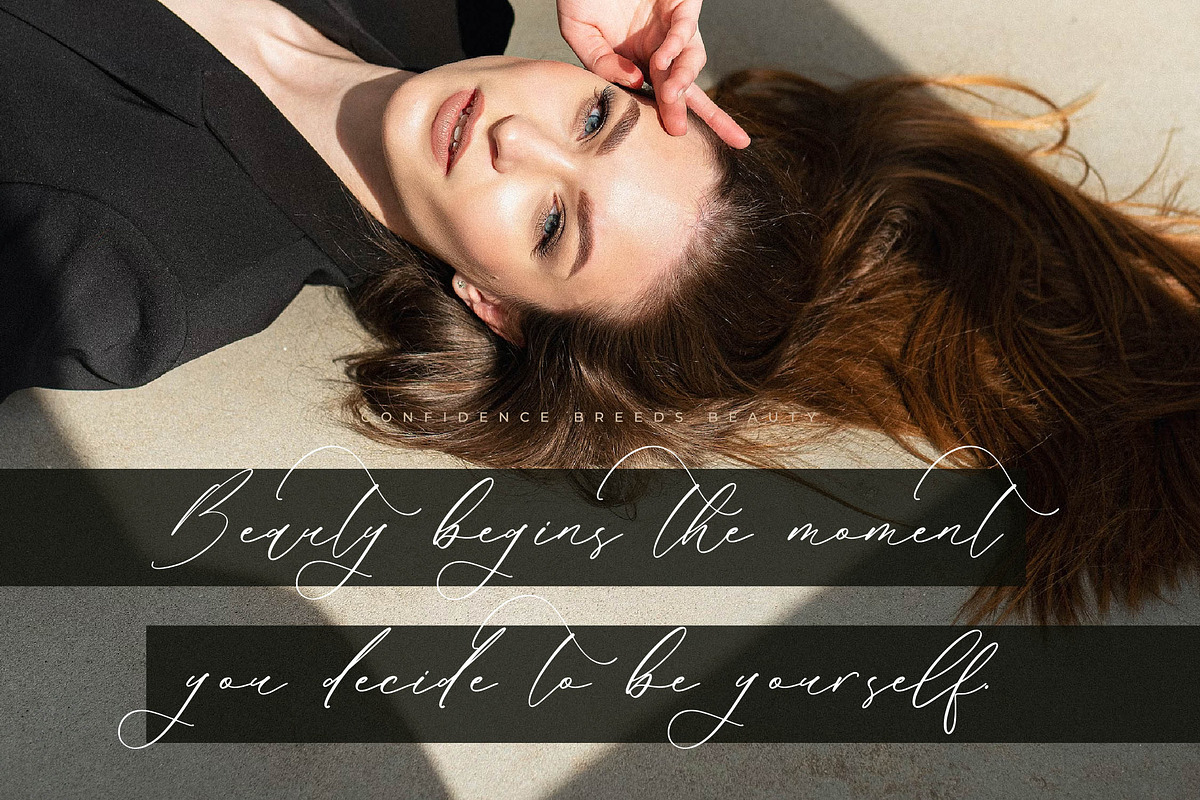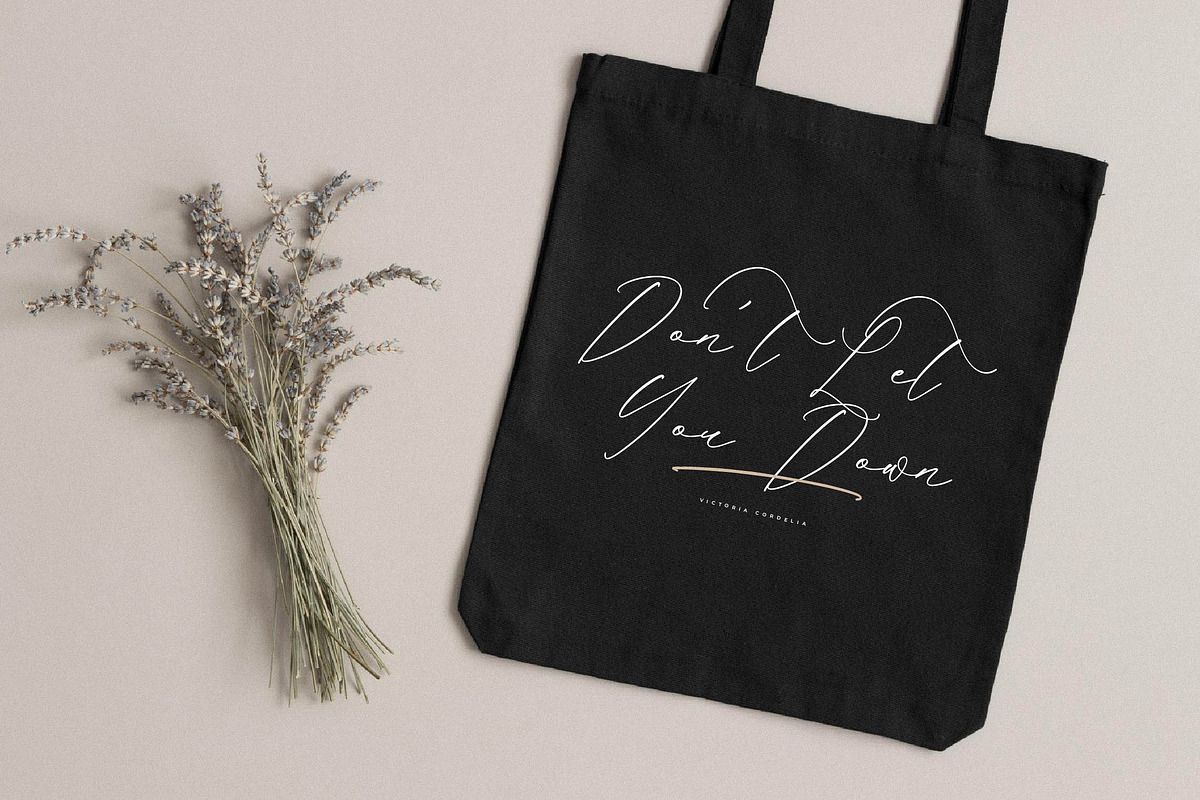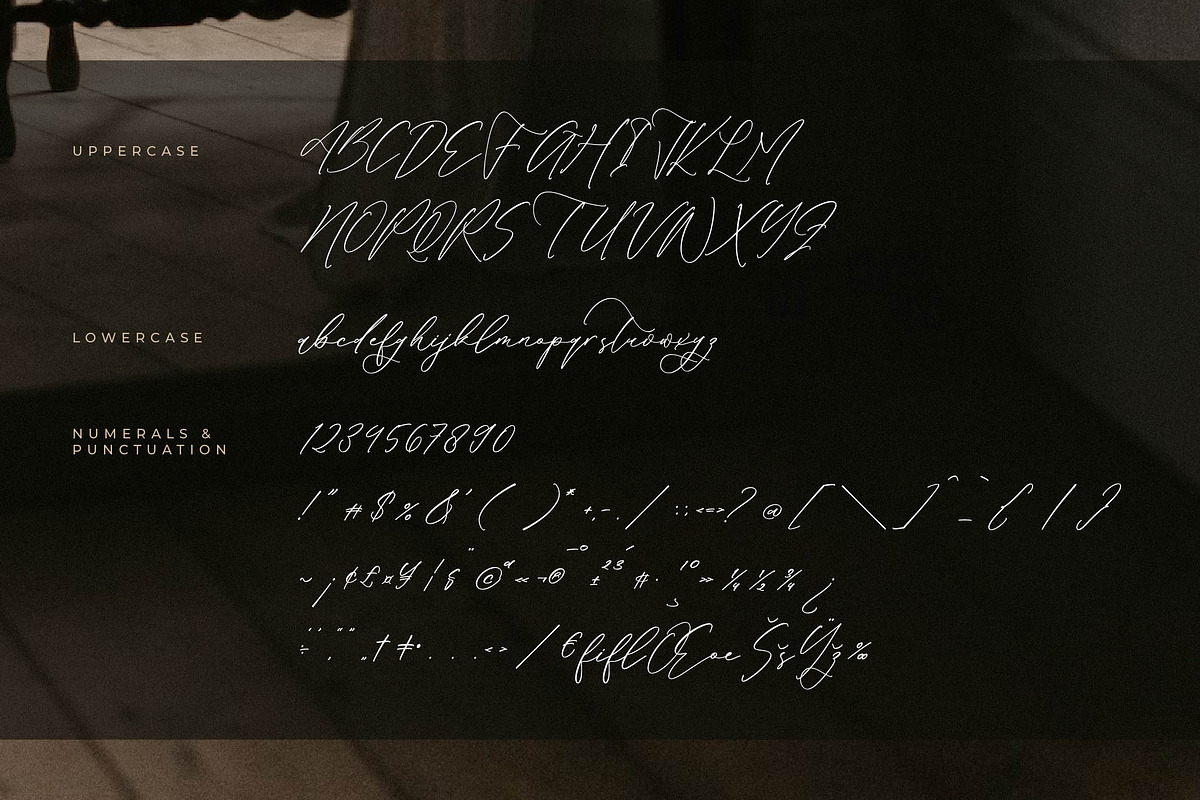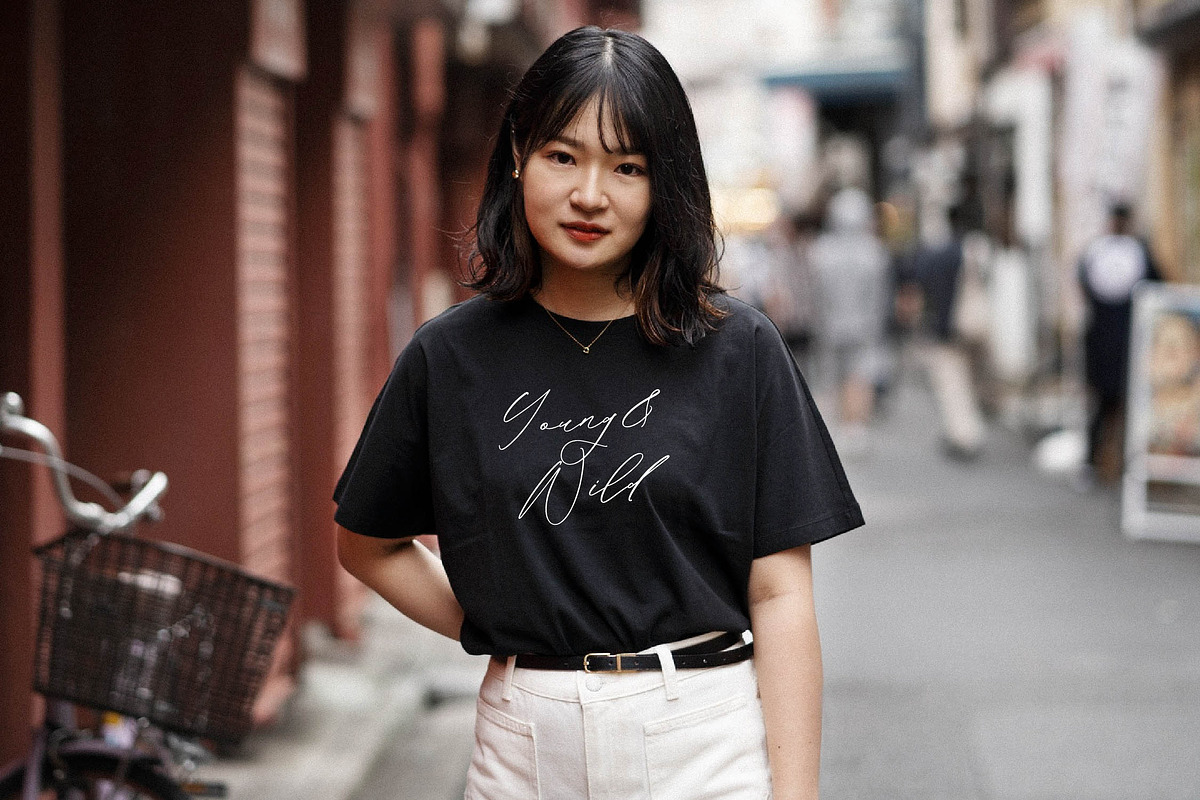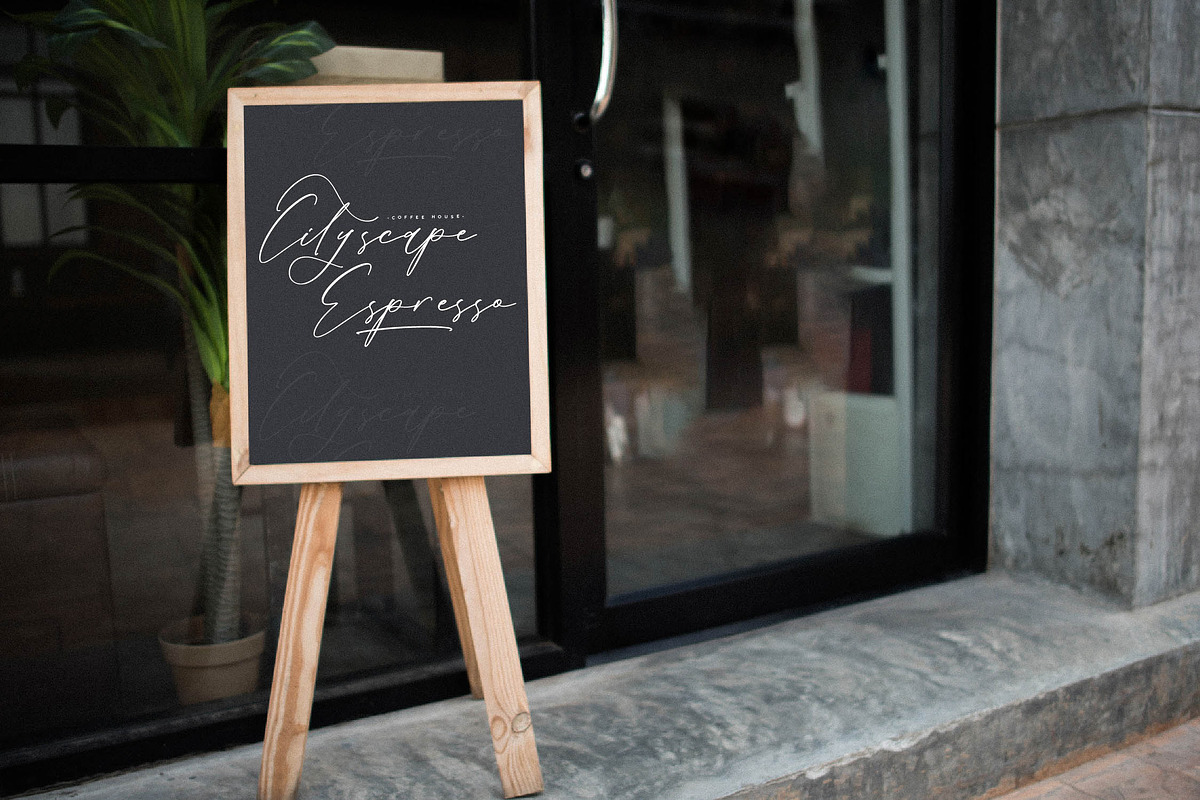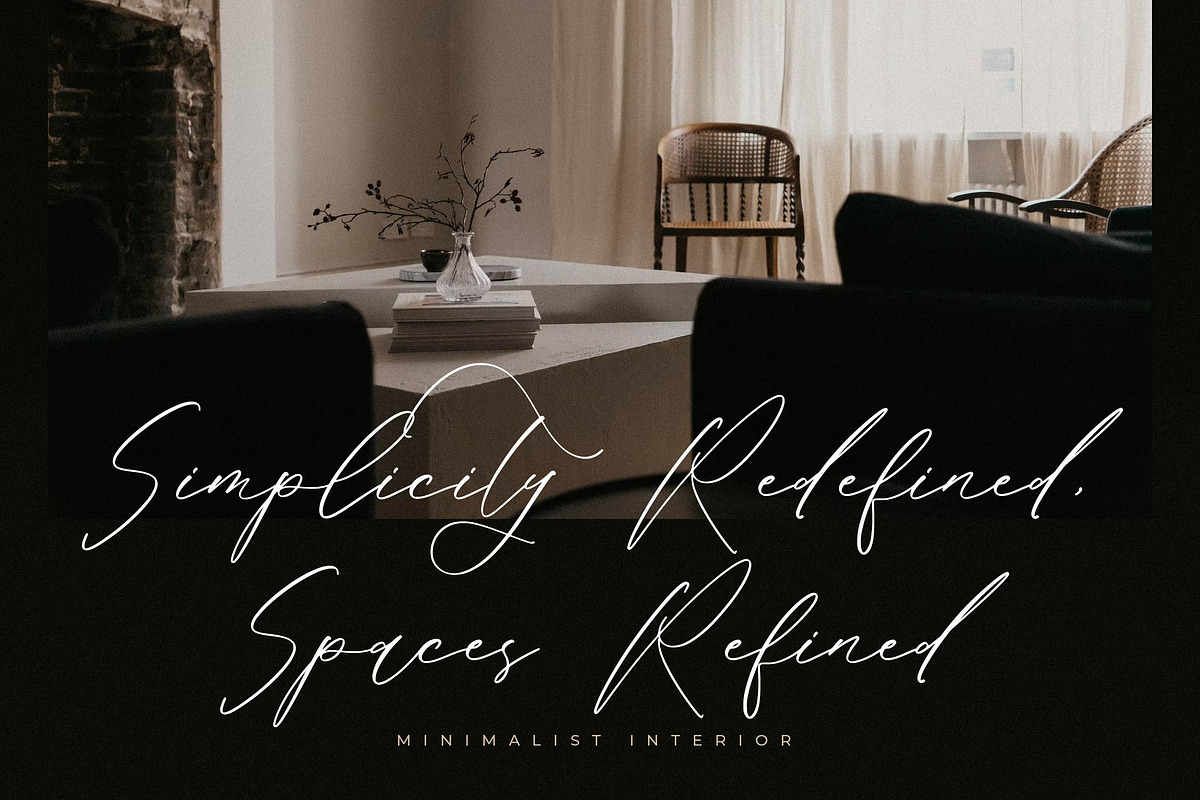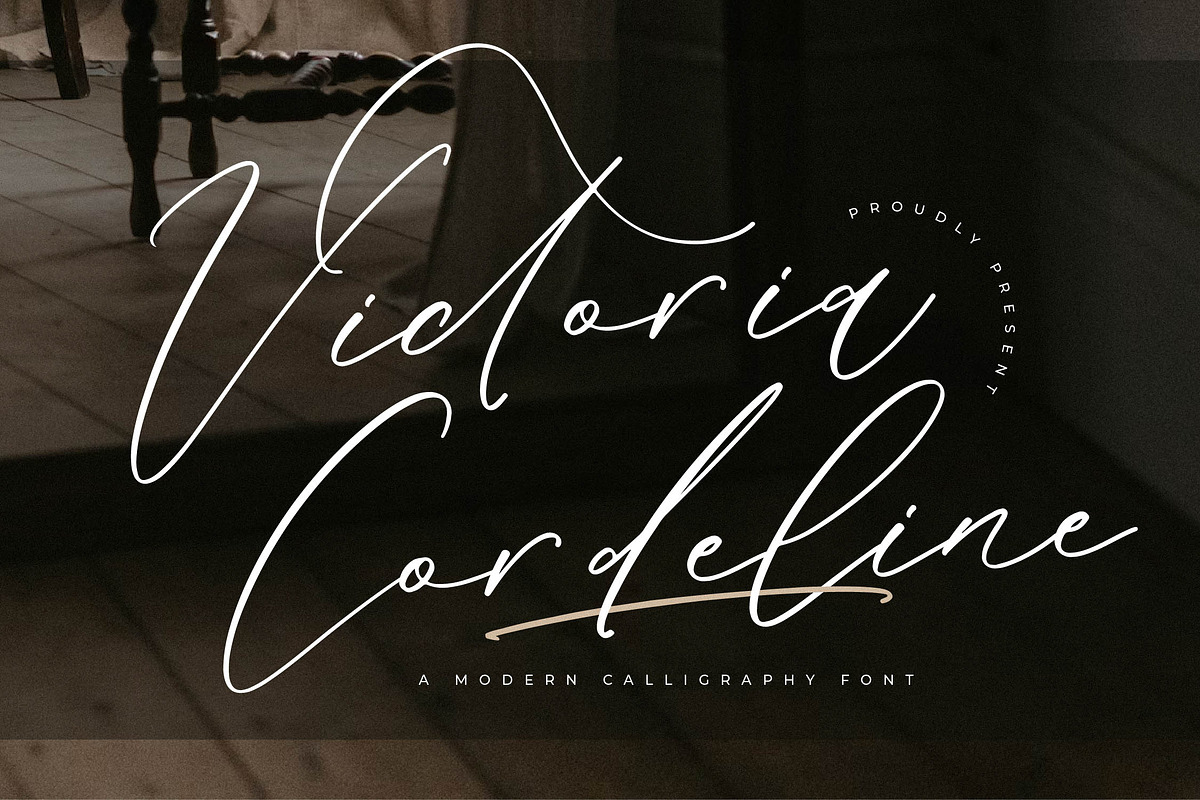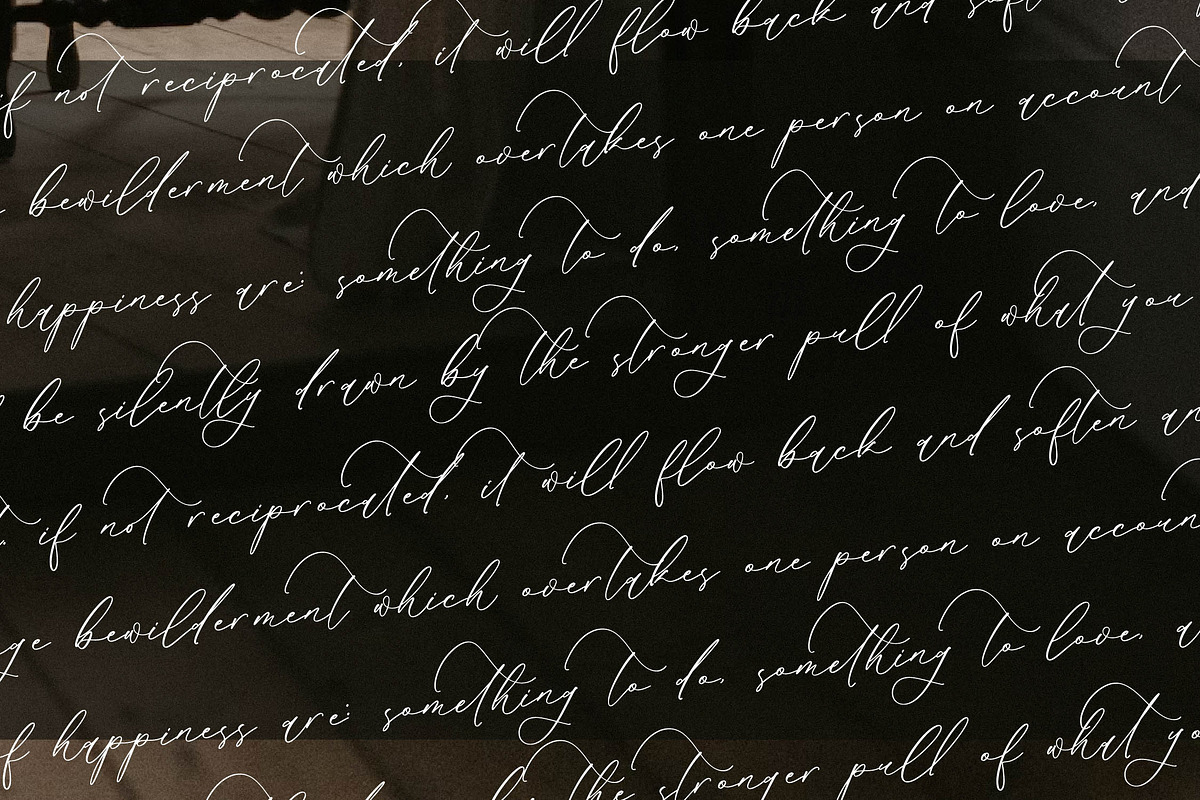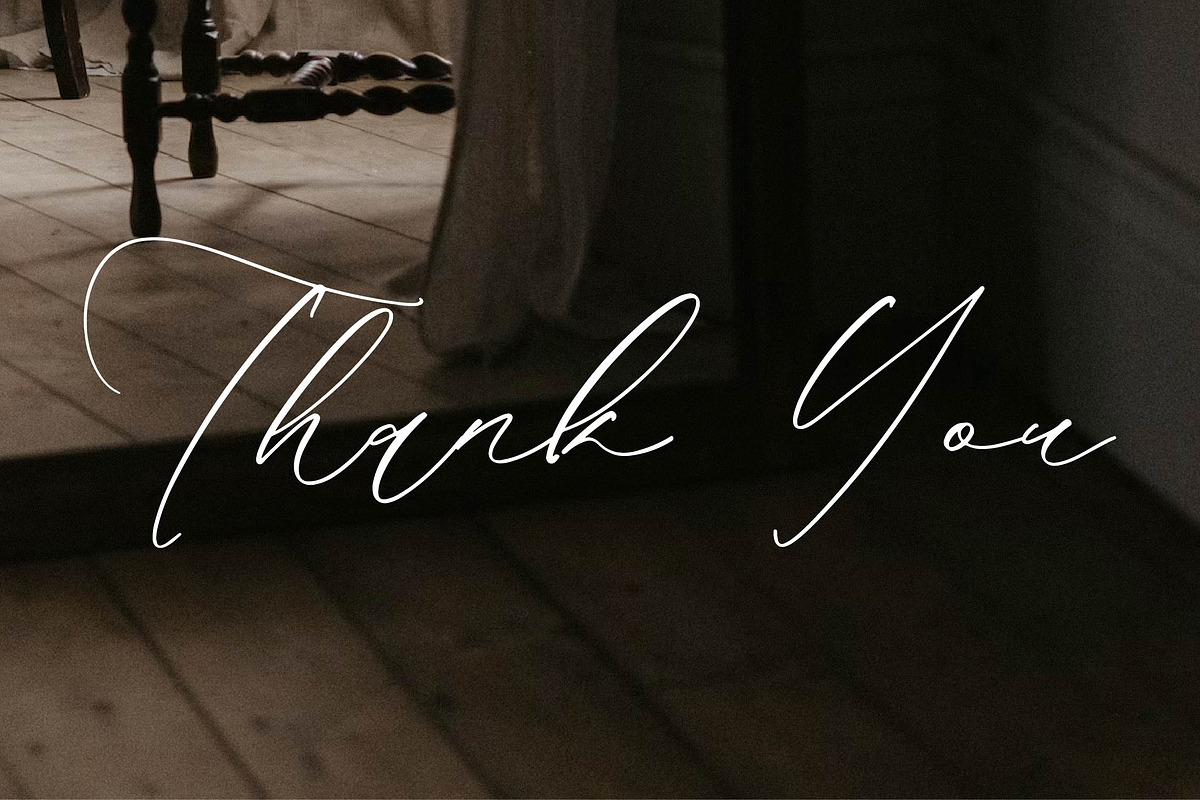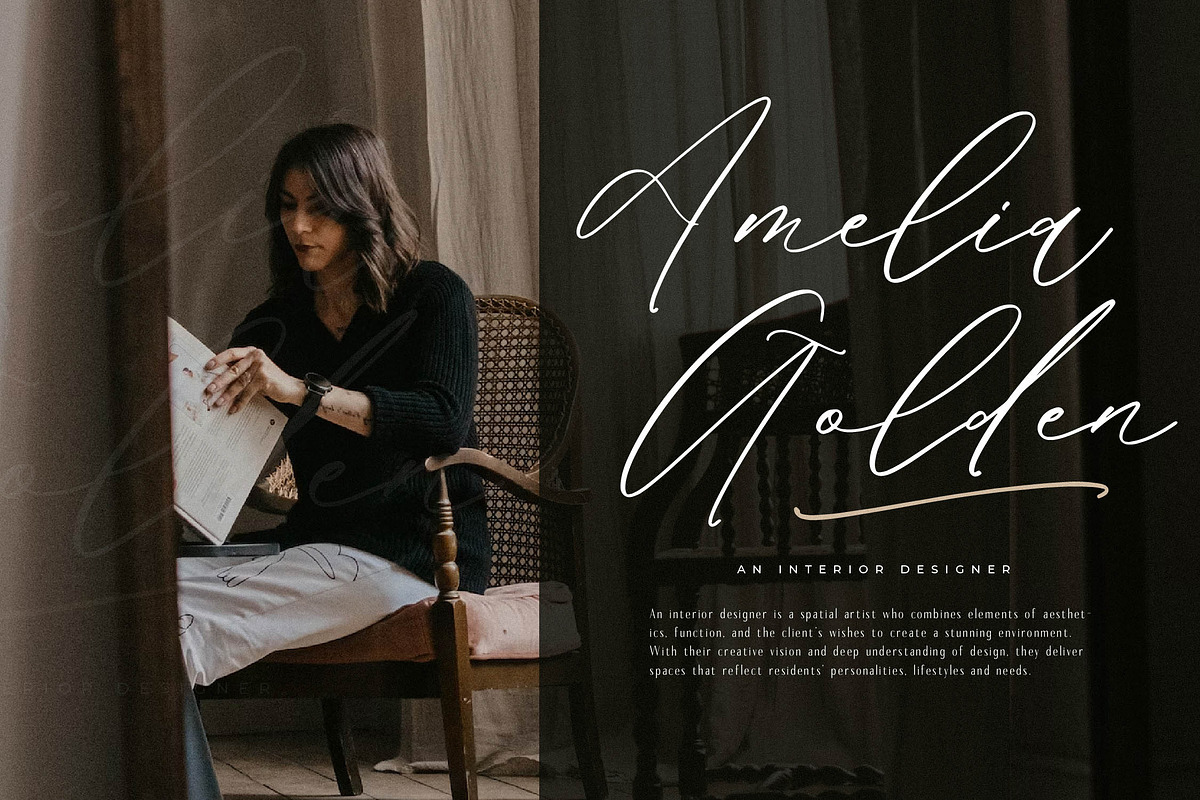
Victoria Cordeline A Modern Font
Proudly present Victoria Cordeline – Modern Calligraphy Font , created by Storytype, A luxury script that has own unique style & modern look. This typeface is perfect for an elegant & luxury logo, book or movie title design, fashion brand, magazine, clothes, lettering, quotes, and so much more.